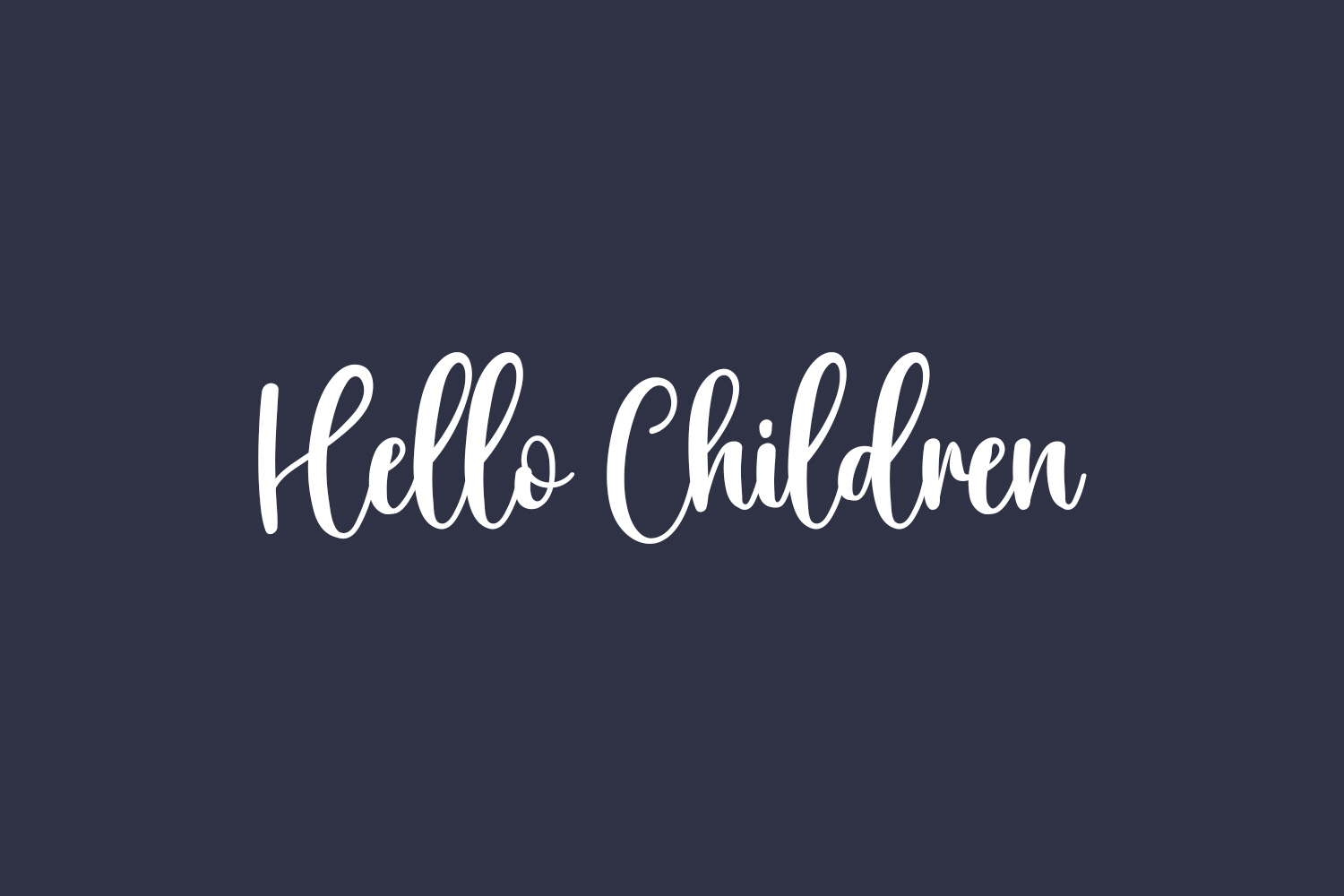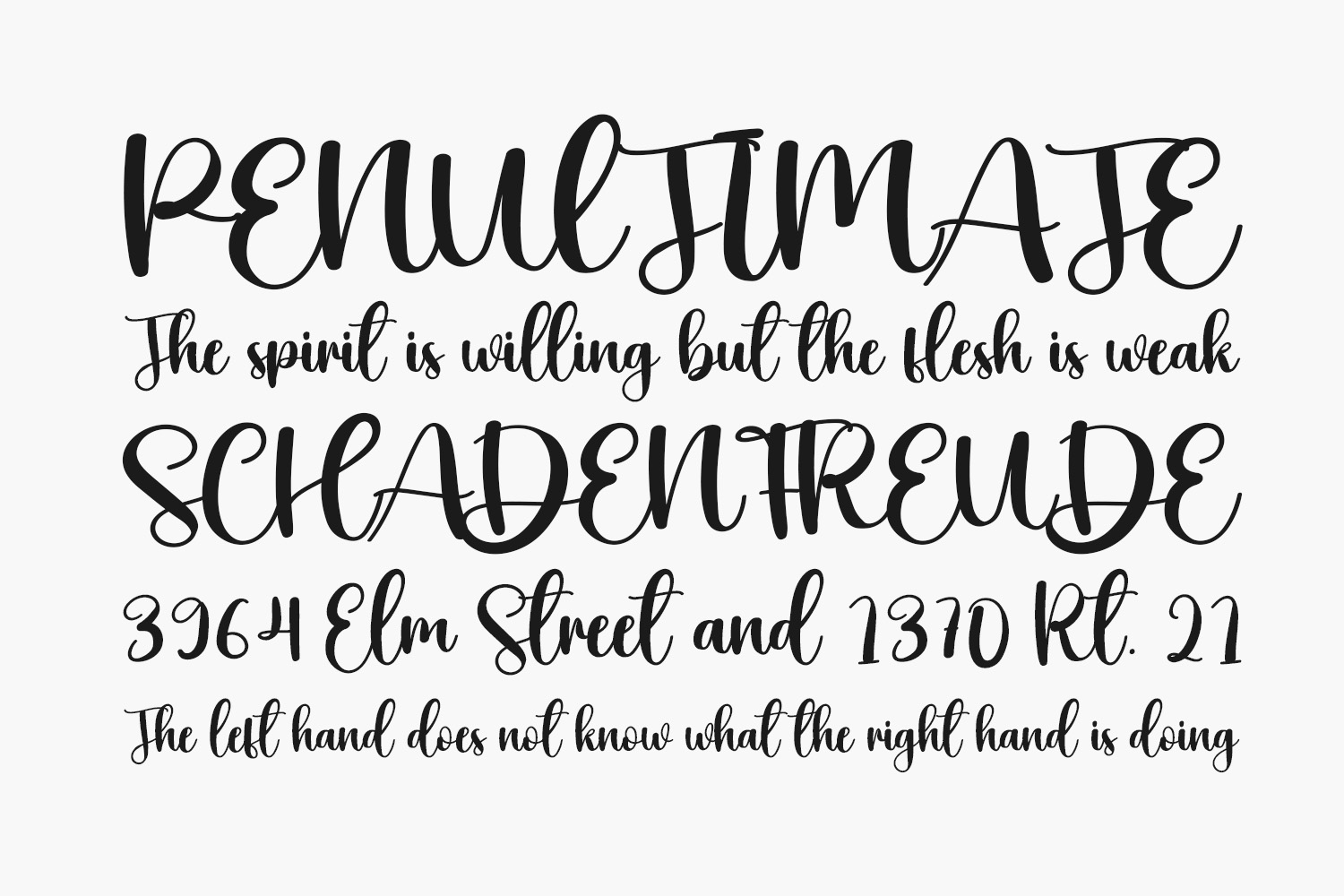
Discover the captivating elegance of Hello Children Free Font, a meticulously crafted handwritten font destined to be your ultimate favorite. Combining timeless calligraphic elements with a modern, fresh feel, this font elevates your projects to new heights. Immerse yourself in its charm and watch your creations shine! Optimize your experience with Hello Children. Hello Children Free Font is free for personal use only. Please purchase the full version for commercial use.
Designed by Scratchones